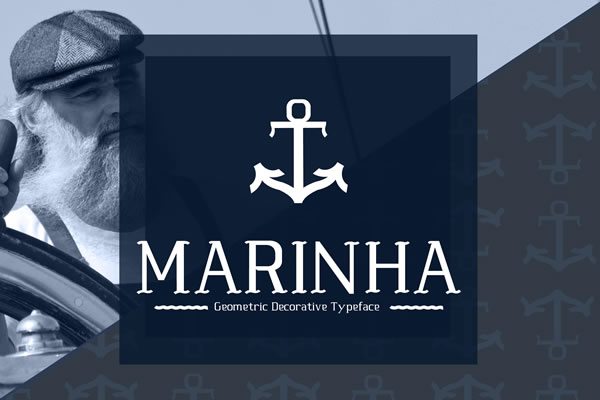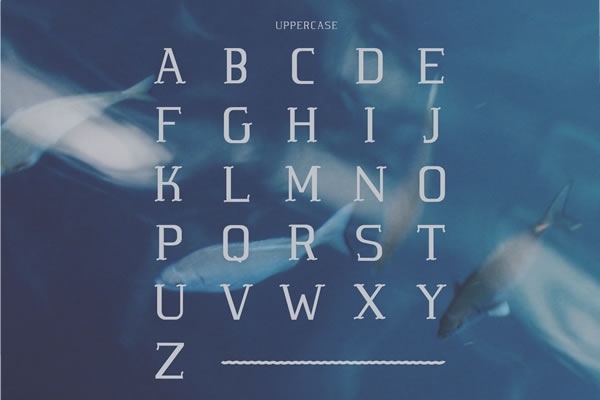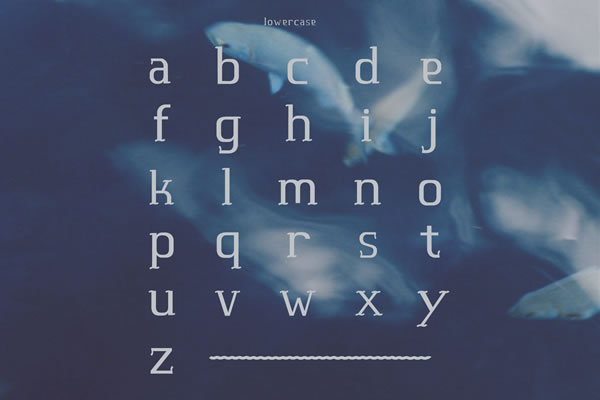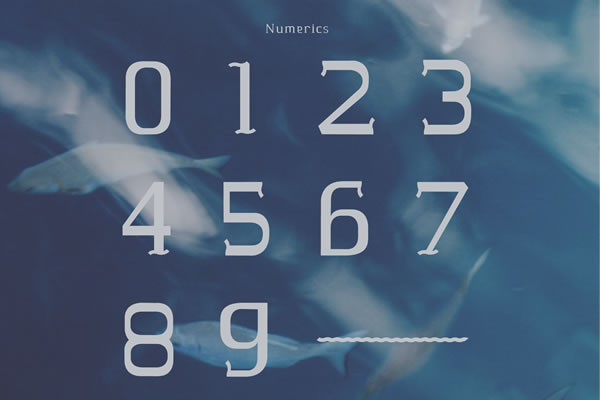
Marinha Font: Nautical Geometric Font for Creative Logo Design
About the Marinha Font
Crafted with precision, the Marinha Font is ready to bring your ideas to life. Marinha is a nautical themed font. This geometric decorative typeface was created by Ângela Torres.
Marinha’s strong geometric forms make it ideal for headlines, logos, and short, impactful text on posters or packaging. Its nautical theme lends itself well to brands related to travel, adventure, or maritime industries. However, its decorative nature makes it less suitable for body text or UI elements where readability is paramount. Long paragraphs set in Marinha would be difficult to read.
The bold, slightly playful personality of Marinha is best complemented by pairing it with a clean sans-serif like Open Sans for body text, creating a contrast between the decorative headline and easily readable body copy. Alternatively, a more elegant serif like Merriweather could add a touch of sophistication, while maintaining visual balance.
Consider pairing Marinha with a script font for a more vintage or handcrafted feel, provided the script is legible and not overly ornate to avoid visual clutter. Avoid pairing it with other highly decorative fonts, as this would create visual noise and reduce impact.
Marinha Font Usage Examples
Marinha Font Example